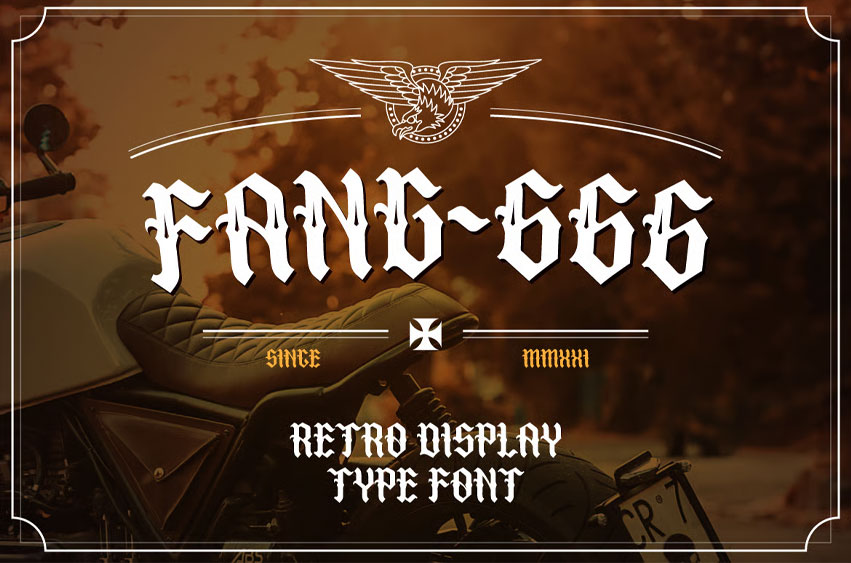
Fang 666 Font Retro Display Font very fit with your motorcycle club, rock band logo, and other vintage stuff you like.
This set contains 2 type, which is regular fang-666, and the coolest one diamond type. Enjoy the experience of using this font.